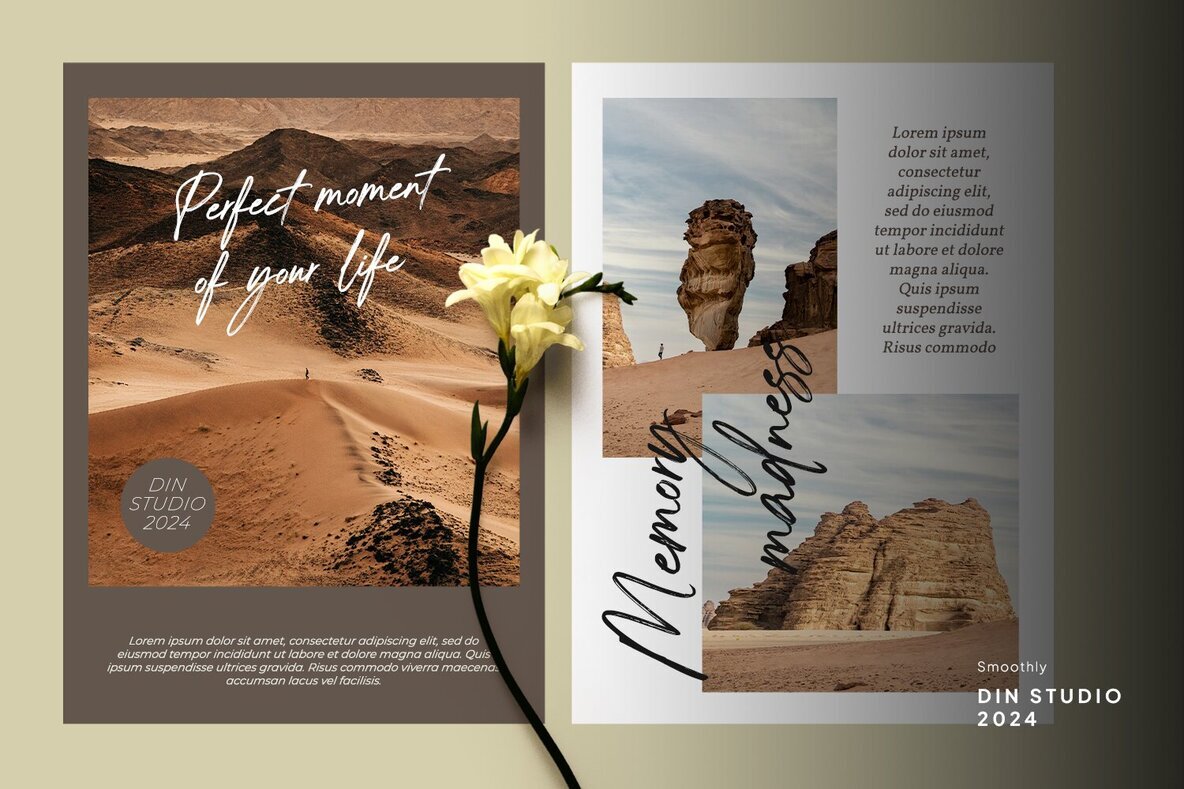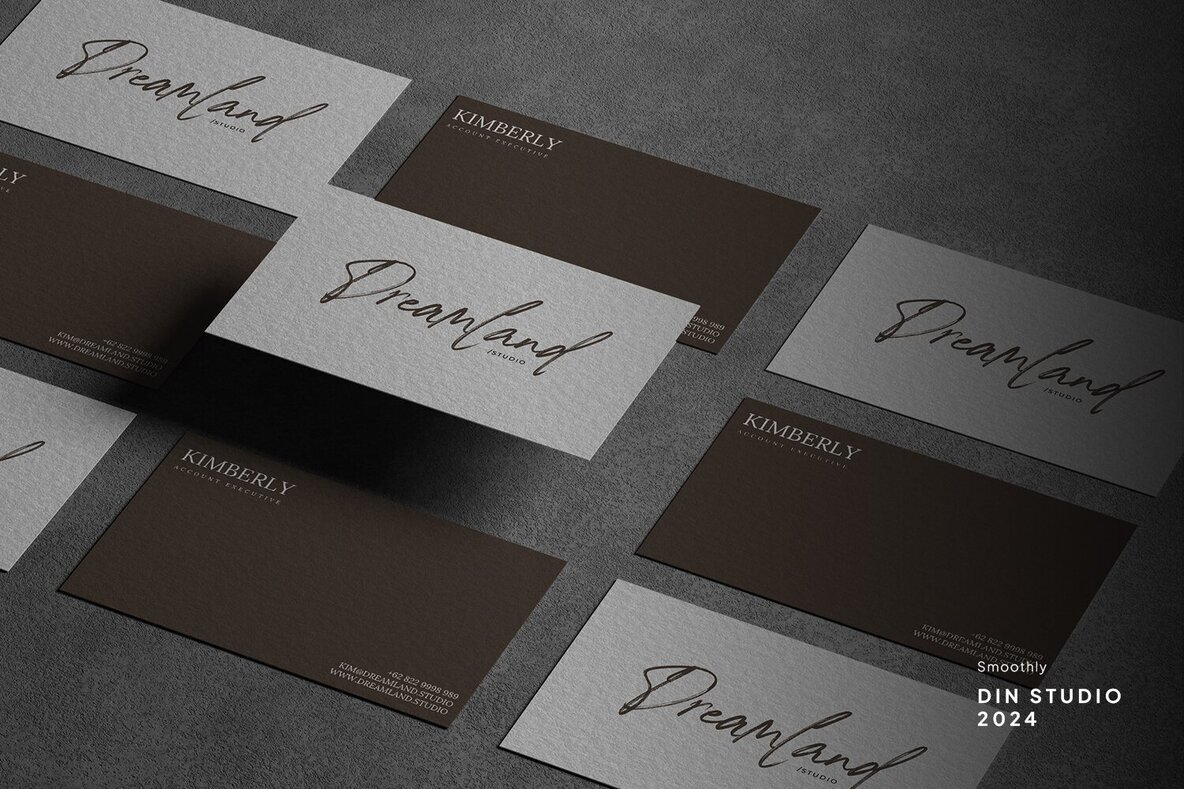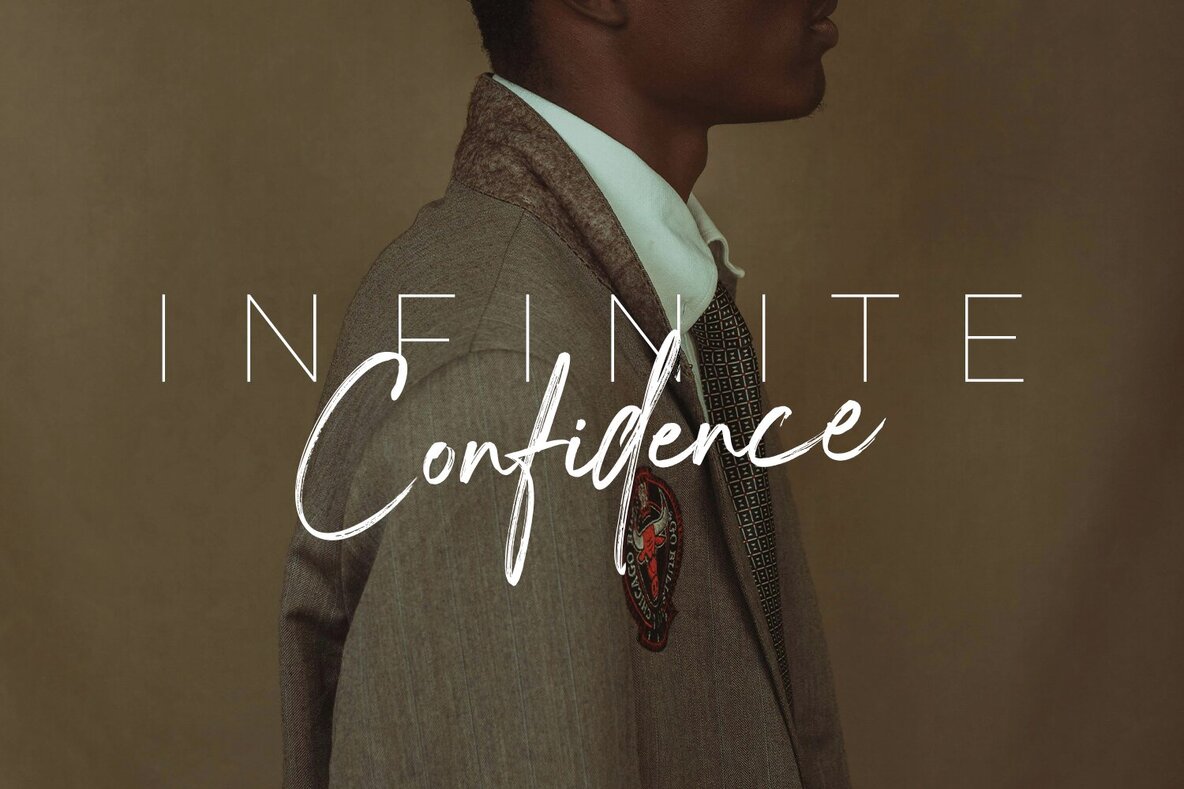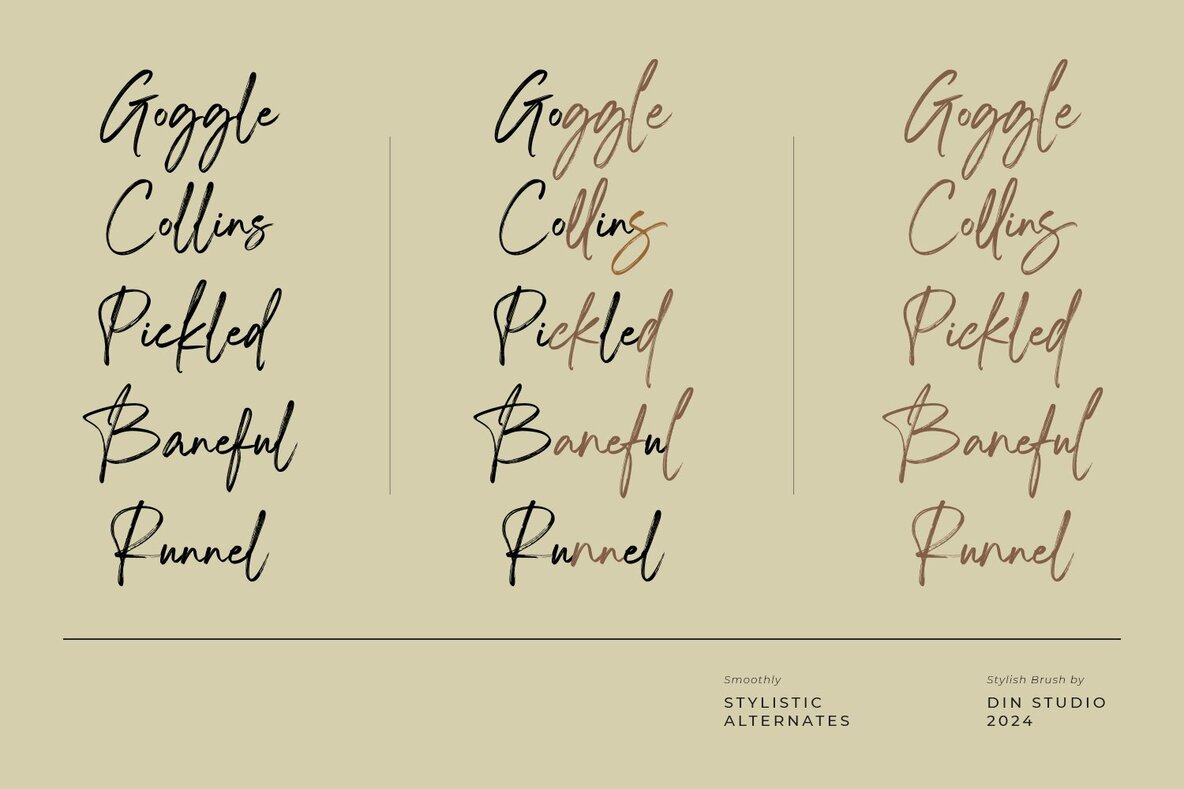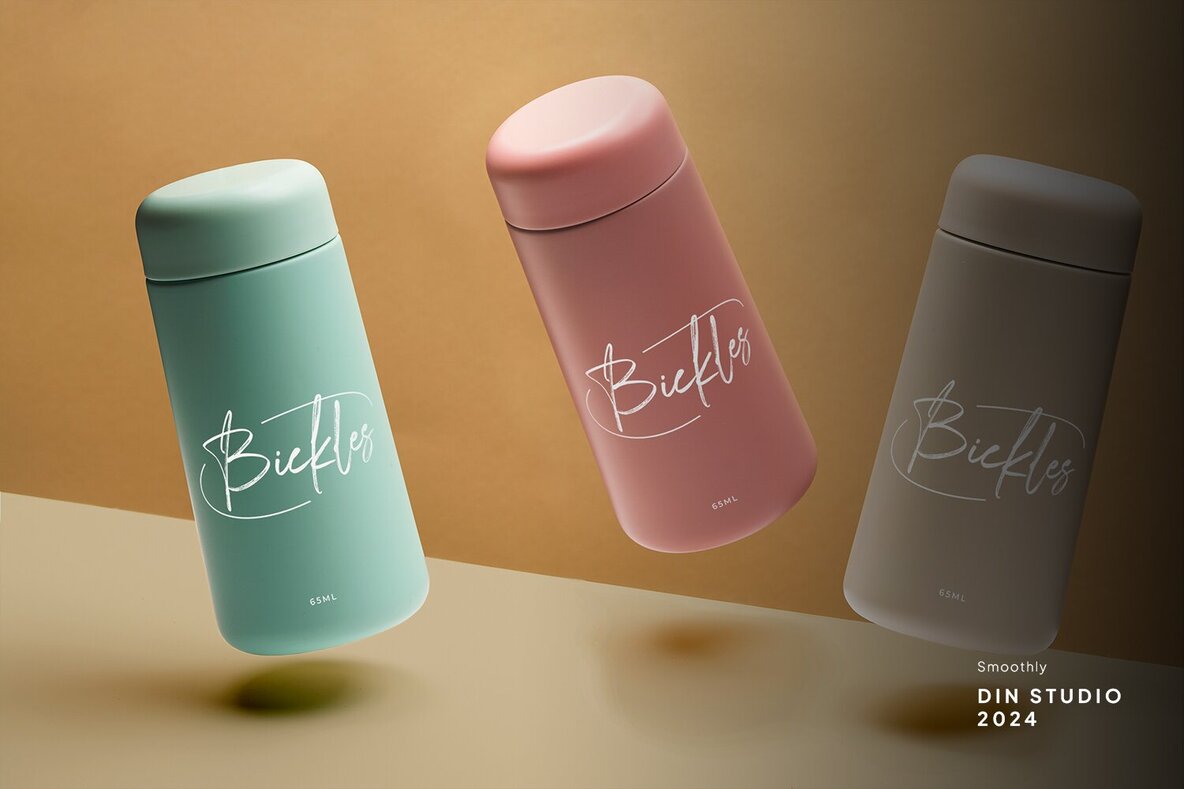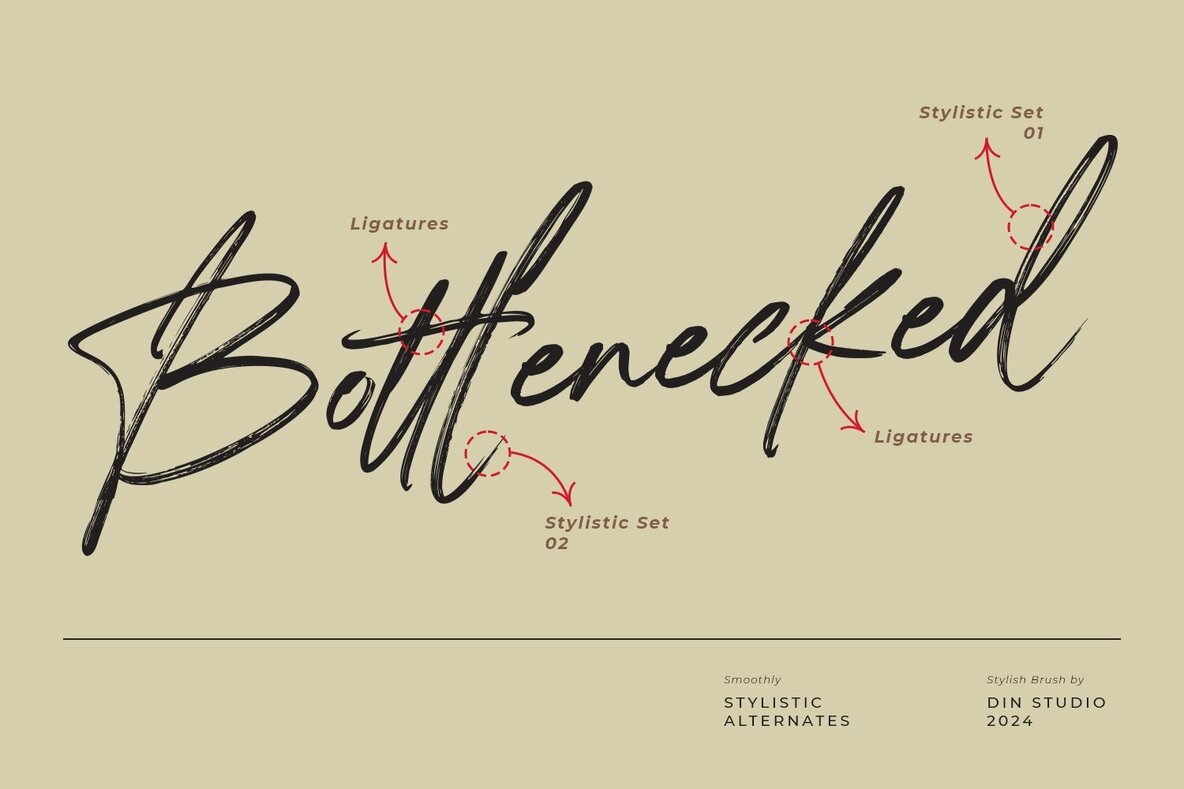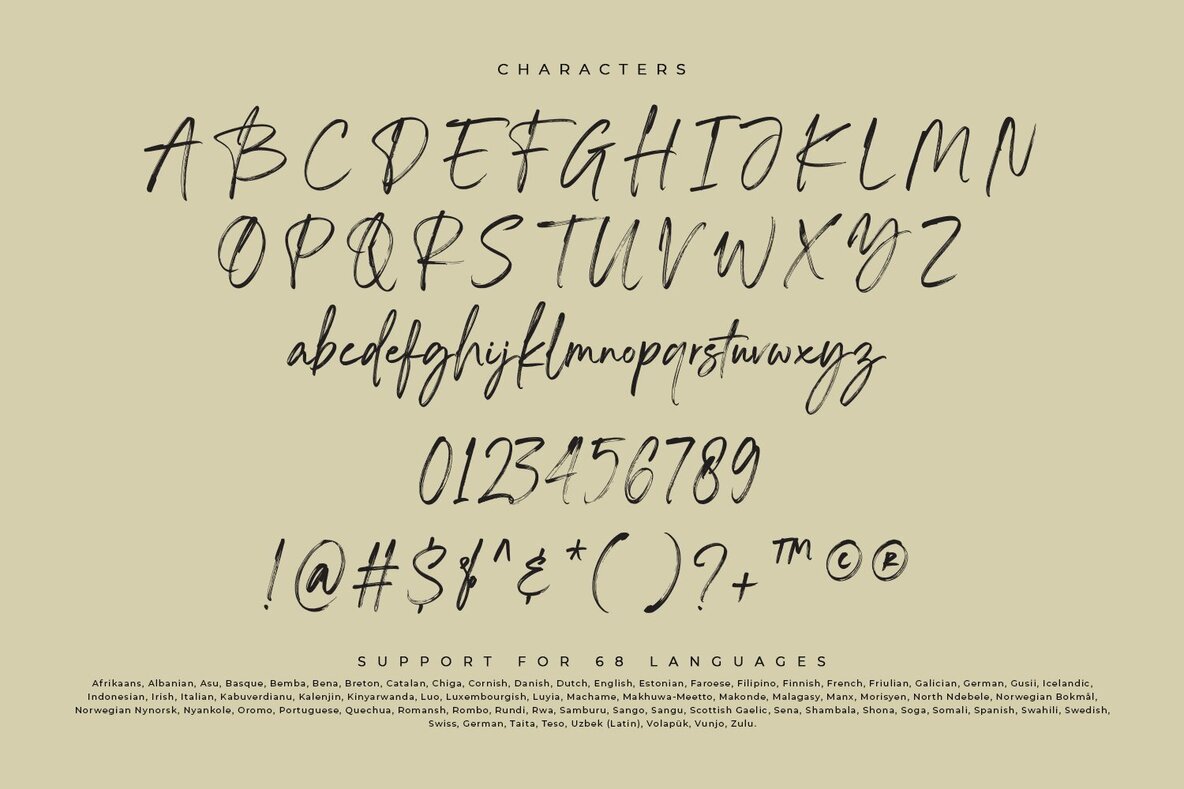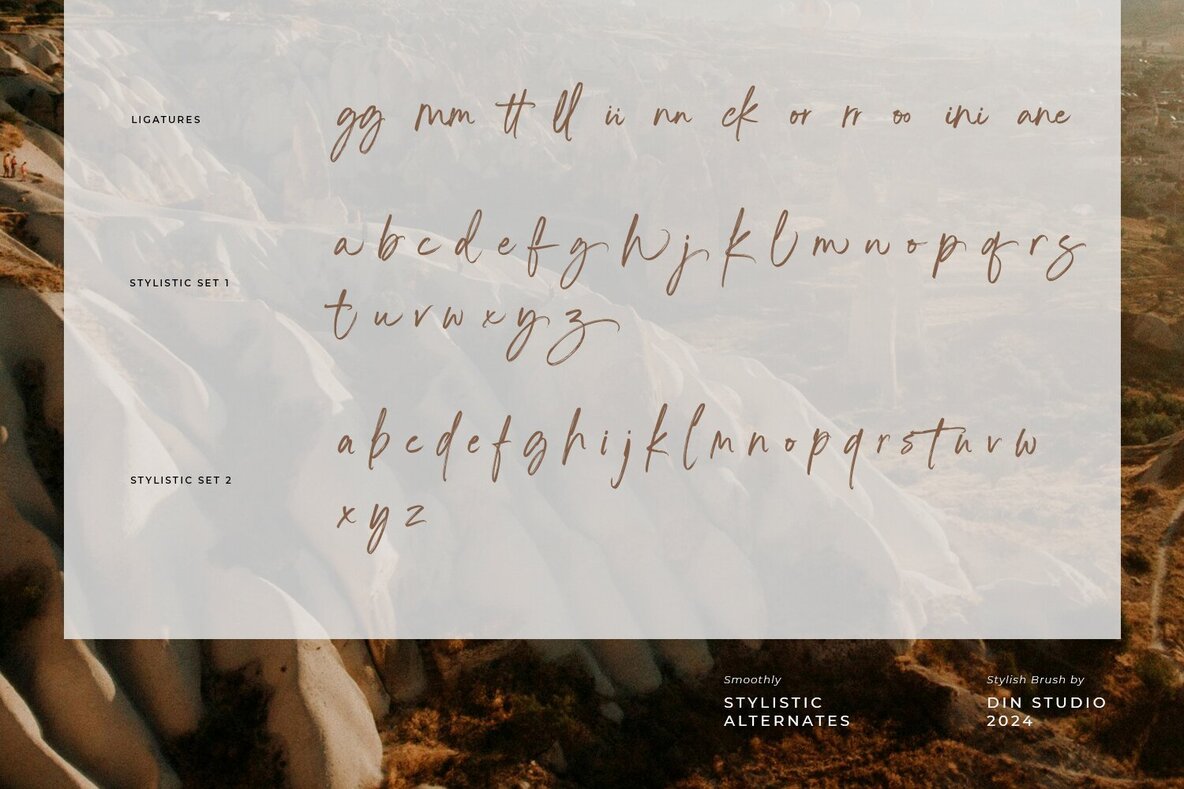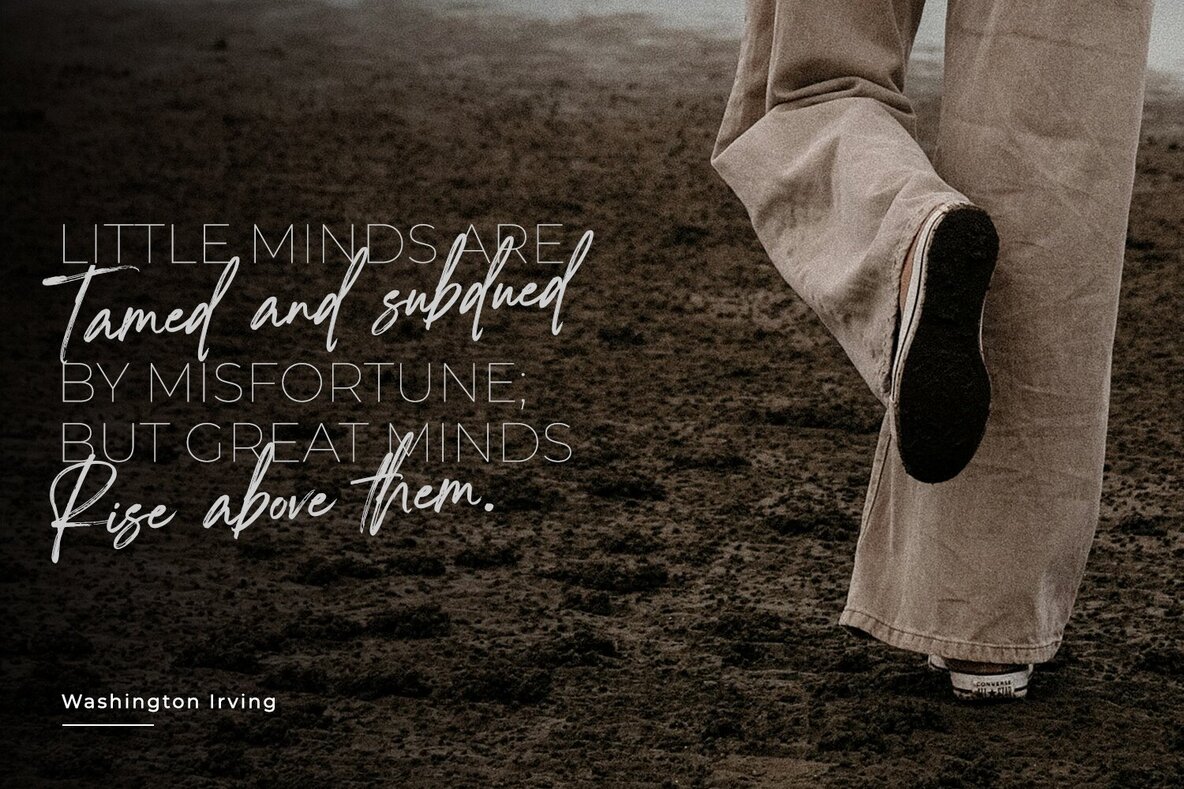
Smoothly Font
Smoothly Regular
Smoothly is a handwritten font that combines effortless charm and dynamic grace. Designed with meticulous brushwork, each letter connects seamlessly, creating a flowing and elegant script. The font’s unequal proportions introduce rhythm and movement, enhancing visual appeal and adding a unique, authentic touch to your designs.
Features include:
- Stylistic sets
- Multilingual support
- Numerals and punctuation
Smoothly is ideal for headlines, logos, posters, flyers, branding materials, greeting cards, print media, and more. Its sophisticated style adds a warm, personal feel to any design project.